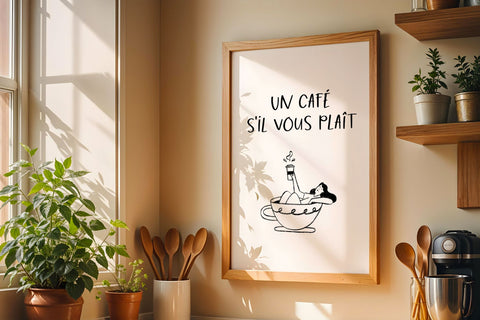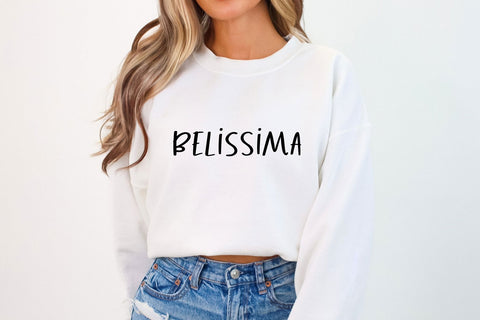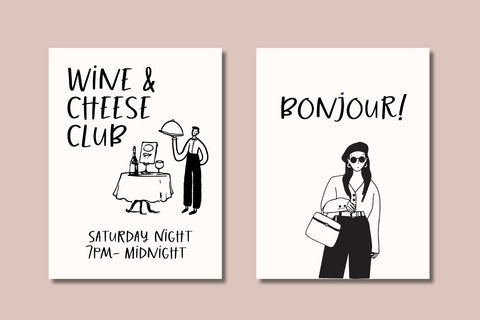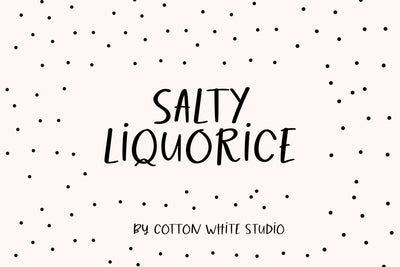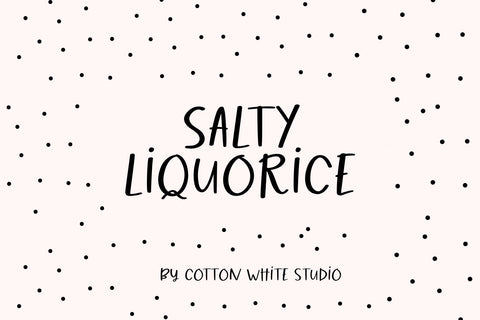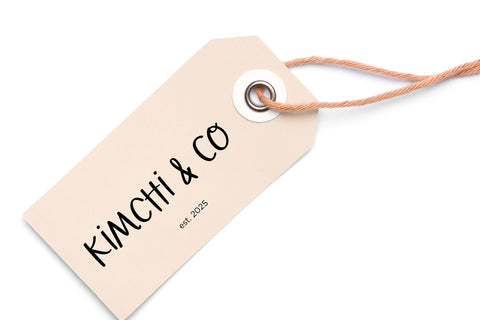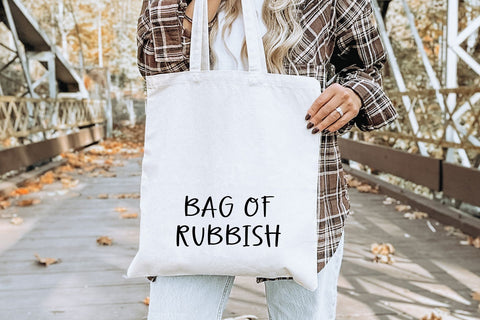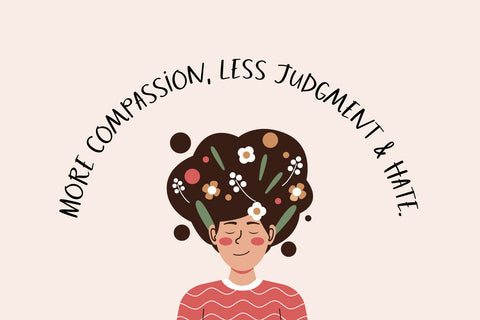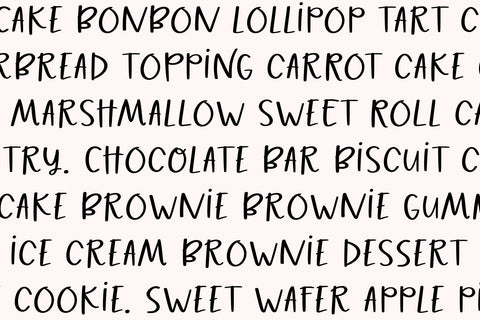
Salty Liquorice Font
A fun and whimsical font that adds a playful touch, making it ideal for social media, creative projects, invitations, posters, crafts, and much more!
Includes uppercase and lowercase letters, numbers, essential punctuation marks, and multilingual support. ❤️